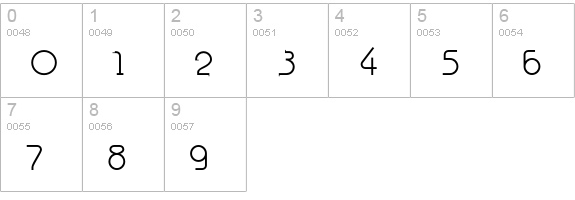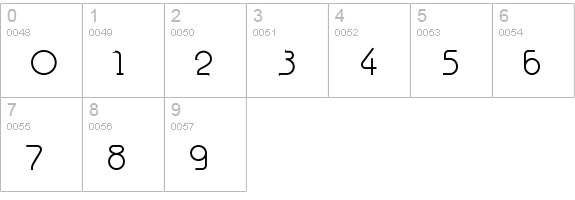
ALEX2 Font Details
The ALEX2 font is a sleek and modern typeface that exudes sophistication and elegance. Its clean lines and stylish curves make it perfect for a wide range of design projects, from logos to packaging to editorial layouts. The ALEX2 font is versatile and can easily adapt to different styles and aesthetics, making it a must-have in any designer's toolkit. One of the best things about the ALEX2 font is that it is completely free to download. You can get your hands on this beautiful typeface at FontsMarket.com, where you can access a wide selection of high-quality fonts for all your design needs. So why wait? Download the ALEX2 font today and elevate your design projects to the next level.